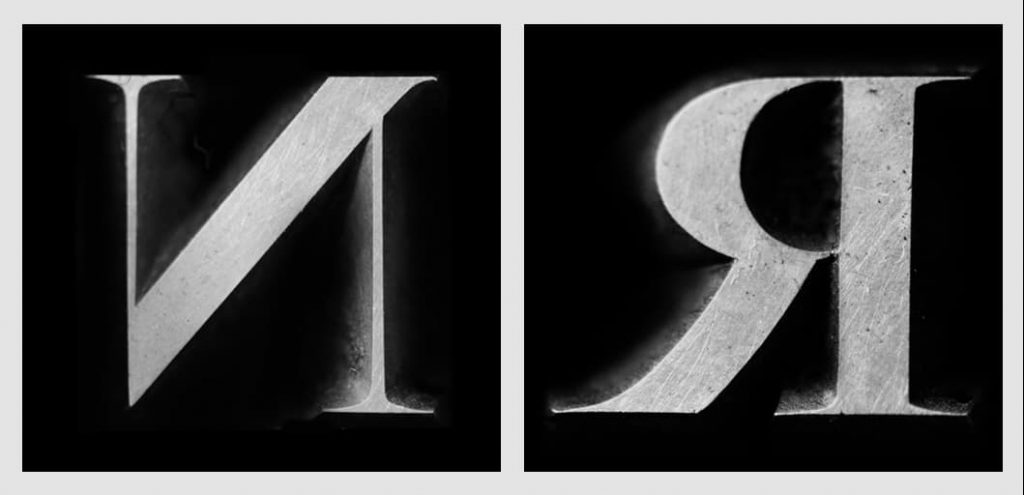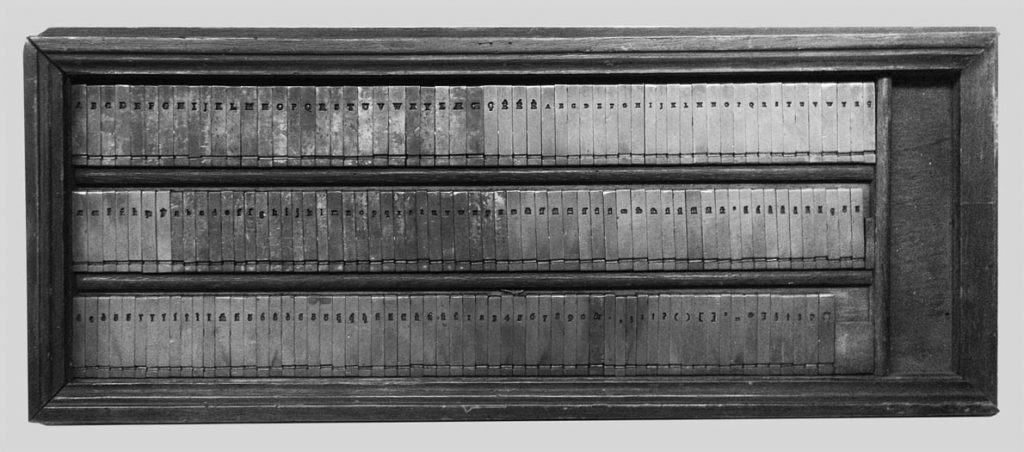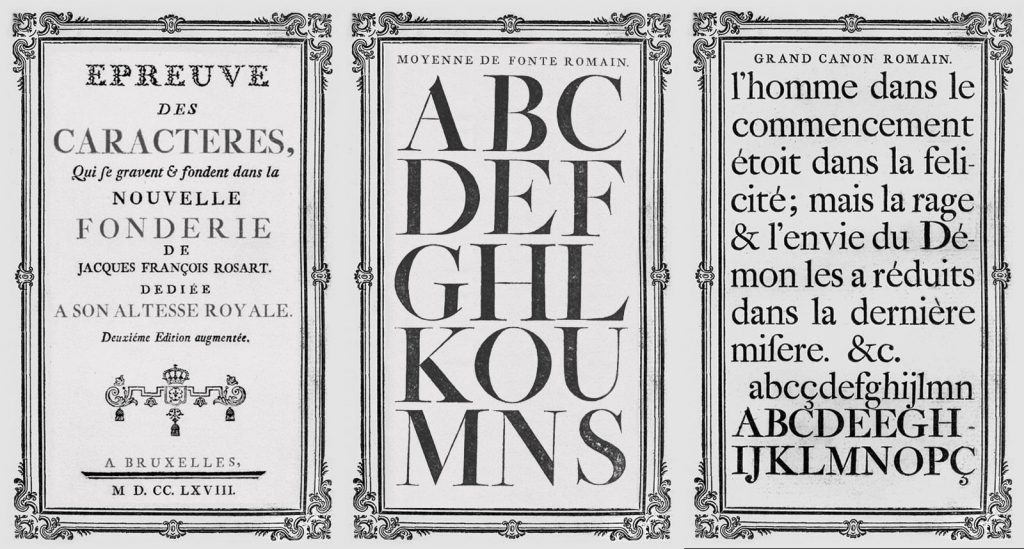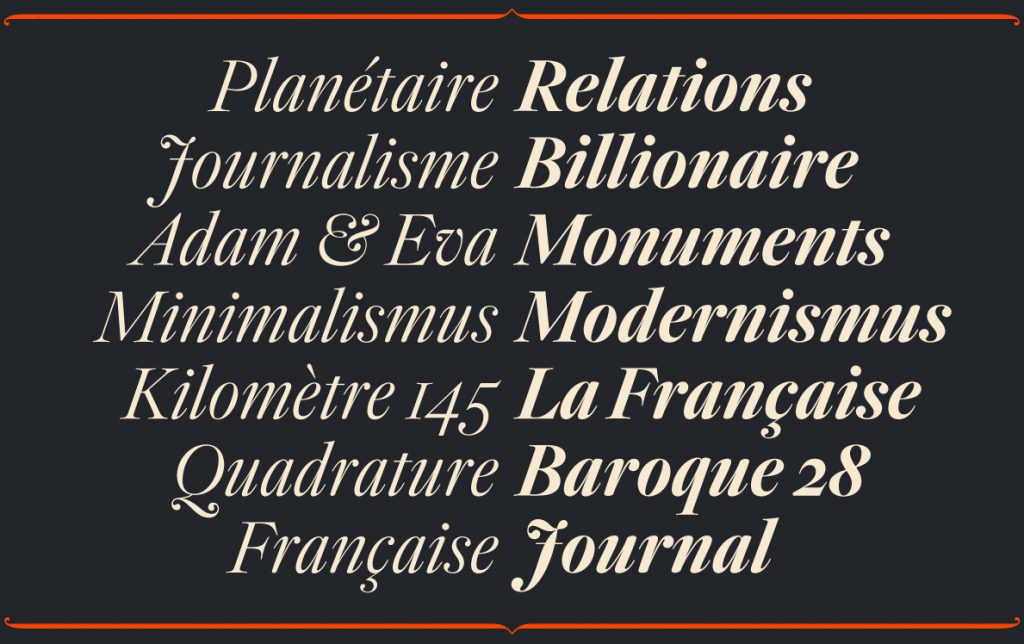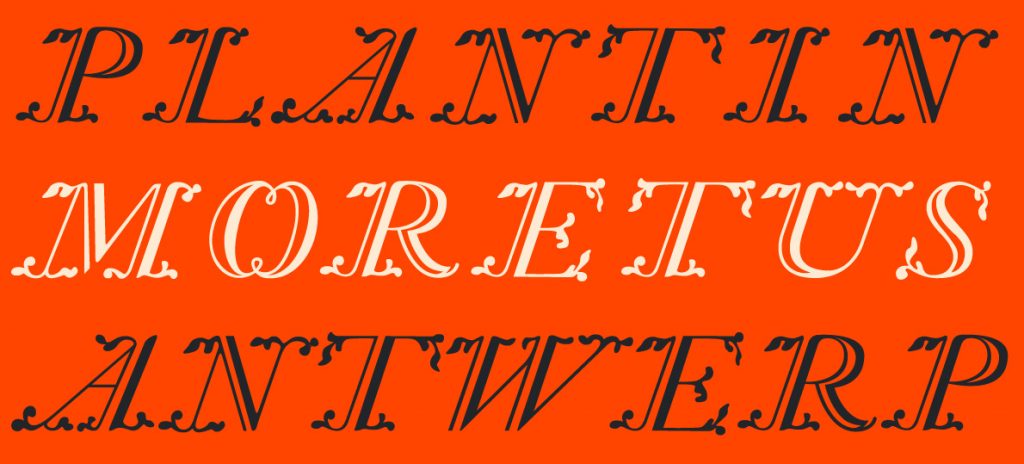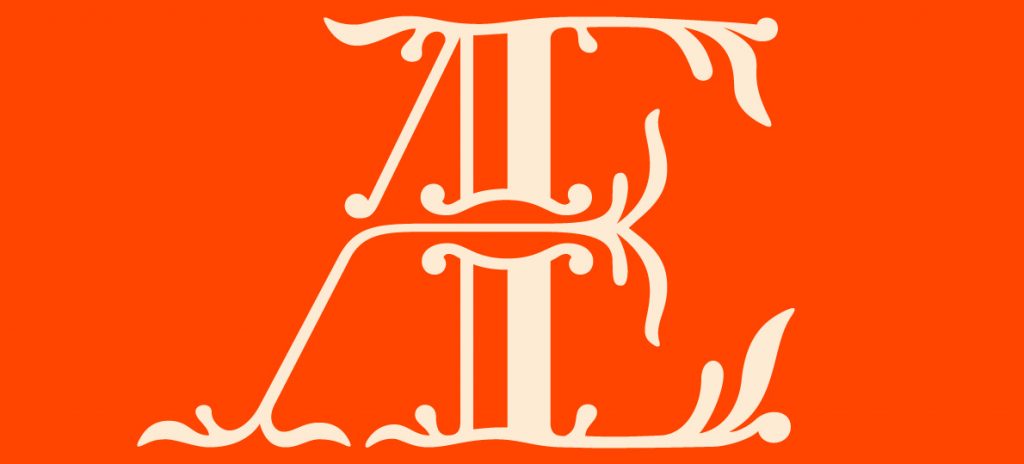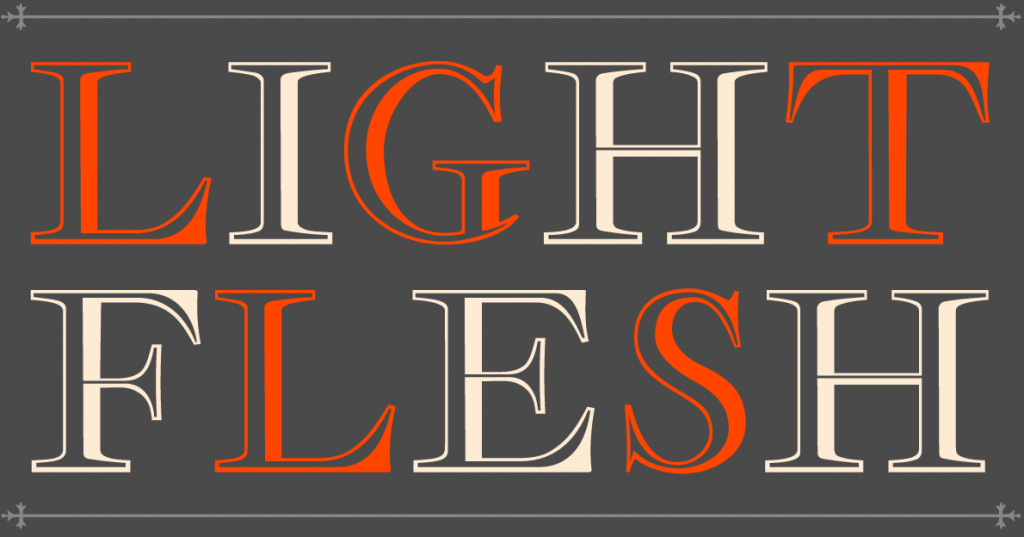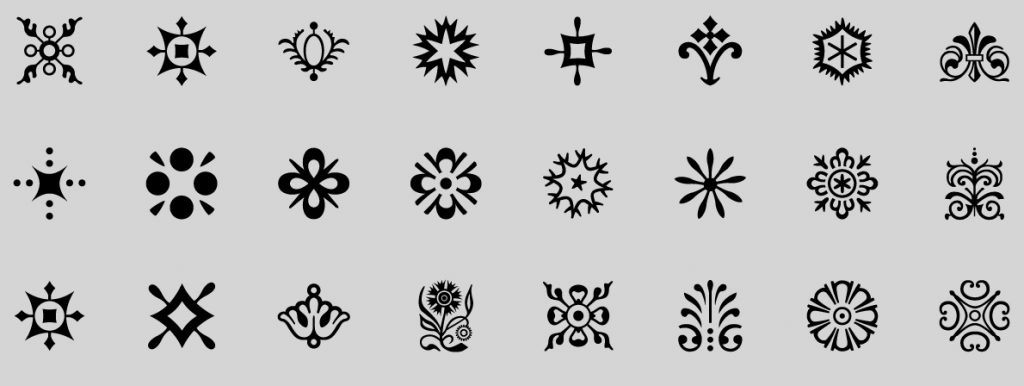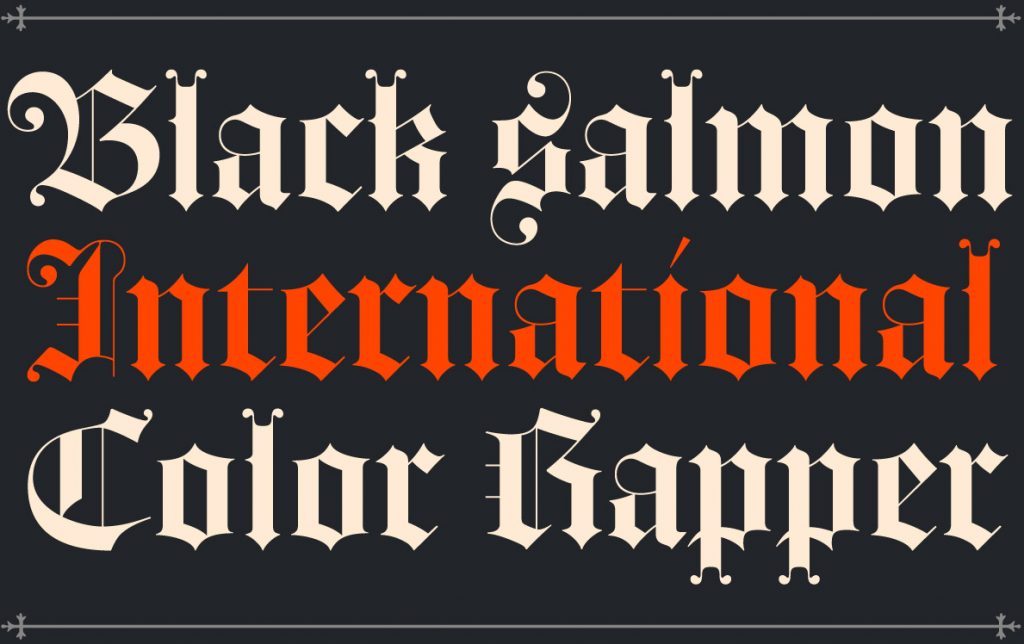
When Walda Verbaenen, Michel Paré, and Lukas Schneider met as classmates among a diverse international group of six students at Antwerp’s Plantin Institute of Typography in 2015, they had no inkling that an intensive, multi-year typographical adventure lay ahead of them post-graduation. Their collaboration started when an in-class exercise led to a shared fascination with the typefaces of Jacques-François Rosart, one of the most important 18th-century punchcutters in the Netherlands.
Through a meticulous process of research, observation, and development, plus focus bordering on obsession (Schneider traveled eight hours a day by train from Germany to attend the Expert Class Type Design taught by Dr. Frank E. Blokland), the trio produced the Rosart Project, a type family they released last year. The extensive revival project encompasses text, display, ornaments, and flourished capitals plus a textura blackletter version. Like detectives, the designers traced Rosart’s life journey in their research through the proofs and specimens of his typefaces.
Their careful process reveals not only the value of primary research but the joy of connecting the dots over centuries to revive the work of a long-gone designer. Verbaenen, Paré, and Schneider recognized the great opportunity they had: the Plantin Institute is located upstairs from the Plantin Moretus Museum, the only one in the world on the Unesco World Heritage list. It contains, among other things, the two oldest printing presses on the planet, more than 20,000 lead punches, and about 25,000 works printed before 1800. Verbaenen says, “To look at the archival material, hold it in your hands and take pictures was the most fun part. It was like a gift.”
Schneider described reviewing 300-year-old printed material in the reading room, surrounded by the old printing presses, as like working in a time machine. The designers further immersed themselves in historical material at the Noord Hollands Archief in Haarlem, home to the entire Museum Enschedé collection, where Verbaenen gathered detailed images of punches, matrices, and type specimens.
Rosart, the person, was not exactly a surefire smash at first, even declaring bankruptcy and selling his workshop, but part of what kept the designers absorbed in his work was the chance to see how he improved over time and how this led to greater success later in life. They learned to love a flawed human by watching him mature as a designer. “When we were first given a type specimen by Rosart to redraw as a starting point, I didn’t like it at all,” says Paré. “The alphabet was confusing and inconsistent.” However, the group soon came to appreciate its beautiful details through close and careful study. They saw a way to keep the best and streamline the rest in their revival.
The wealth of original proofs, punches, and type specimens came with its own challenges, however. Printing in the 18th century was not as good as it is today in terms of the quality of paper, ink, and the press, meaning that printed material varies widely from the cut punches. Schneider, an experienced font designer who was responsible for the digital translation of Le Rosart Display and Text (awarded a Certificate of Typographic Excellence from the Type Director’s Club in New York City) as well as Le Rosart Textura says, “This was the hard part; we had so much reference material yet it was all slightly different. Rosart followed several models and changed his mind quite a bit. His letter shapes are all over the place. At a certain point, to make it contemporary we had to make decisions and winnow things out.”
As an example, the letter S had many minute variations depending on which specimen the designers consulted, forcing them to compare versions, synthesize, make decisions, and standardize the letters in a way that became a true expression of consistent form. Likewise, Paré and Verbaenen were amazed by the sheer quantity of typographic ornaments that Rosart drew. Reinterpreting them for modern technology required the designers to review multiple iterations in order to maintain consistency throughout the digital set of Rosart ornaments (Paré) and Flourished Capitals (Paré & Verbaenen).
Another challenge was to develop a heavier weight since there were no bold typefaces during Rosart’s lifetime. Schneider had to make many additional adjustments to the bold letters to keep their expressiveness; as the strokes became thicker, there was less room for flourishes and dropped terminals.
Over their long development process for the Rosart Project, the three designers realized the value of the efforts of all the people who produced the ancient material in the archives—people who cared about the same things they do. Verbaenen says, “We developed our love for Rosart once we got to know him as more than an uninteresting typecutter. We sensed his human presence and carried it forward into today via a typeface.” Schneider adds, “We are lucky to participate in the heritage of our culture.”